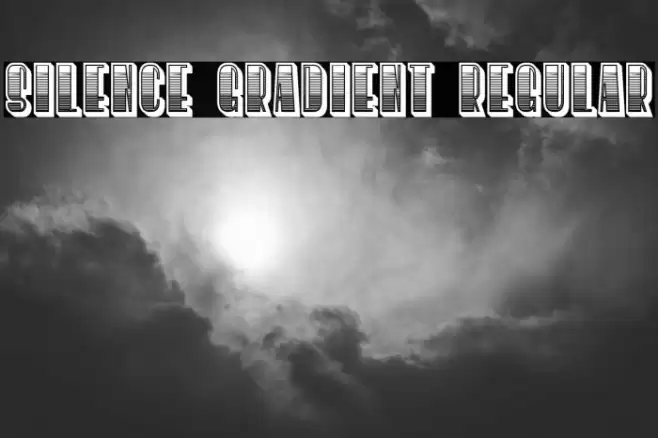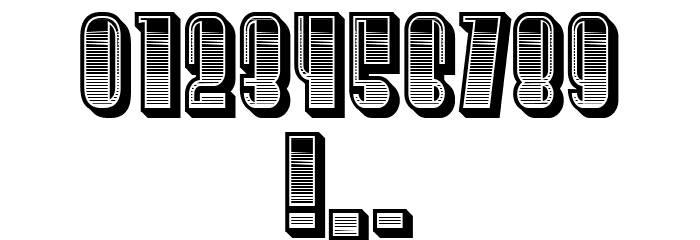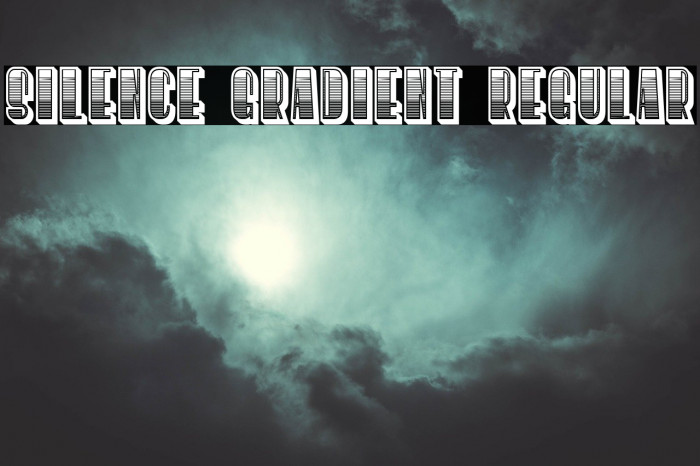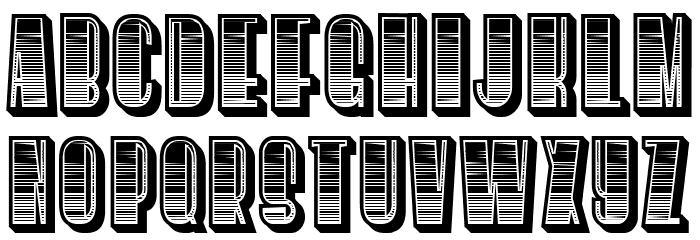
Silence Gradient Regular Font
Silence Gradient Regular Description
This font features a bold, decorative style with a unique gradient effect within each character. The letters are outlined with a thick black border, enhancing their visibility and impact. The internal gradient lines create a sense of depth and texture, making each character stand out. The uppercase and lowercase letters maintain a consistent design, ensuring uniformity across different text sizes. The numerals and special characters are designed with the same attention to detail, providing a cohesive look throughout. This font's distinct style is ideal for projects that require a strong visual presence.
A bold, decorative font with a unique gradient effect and thick outlines from Thick fonts.